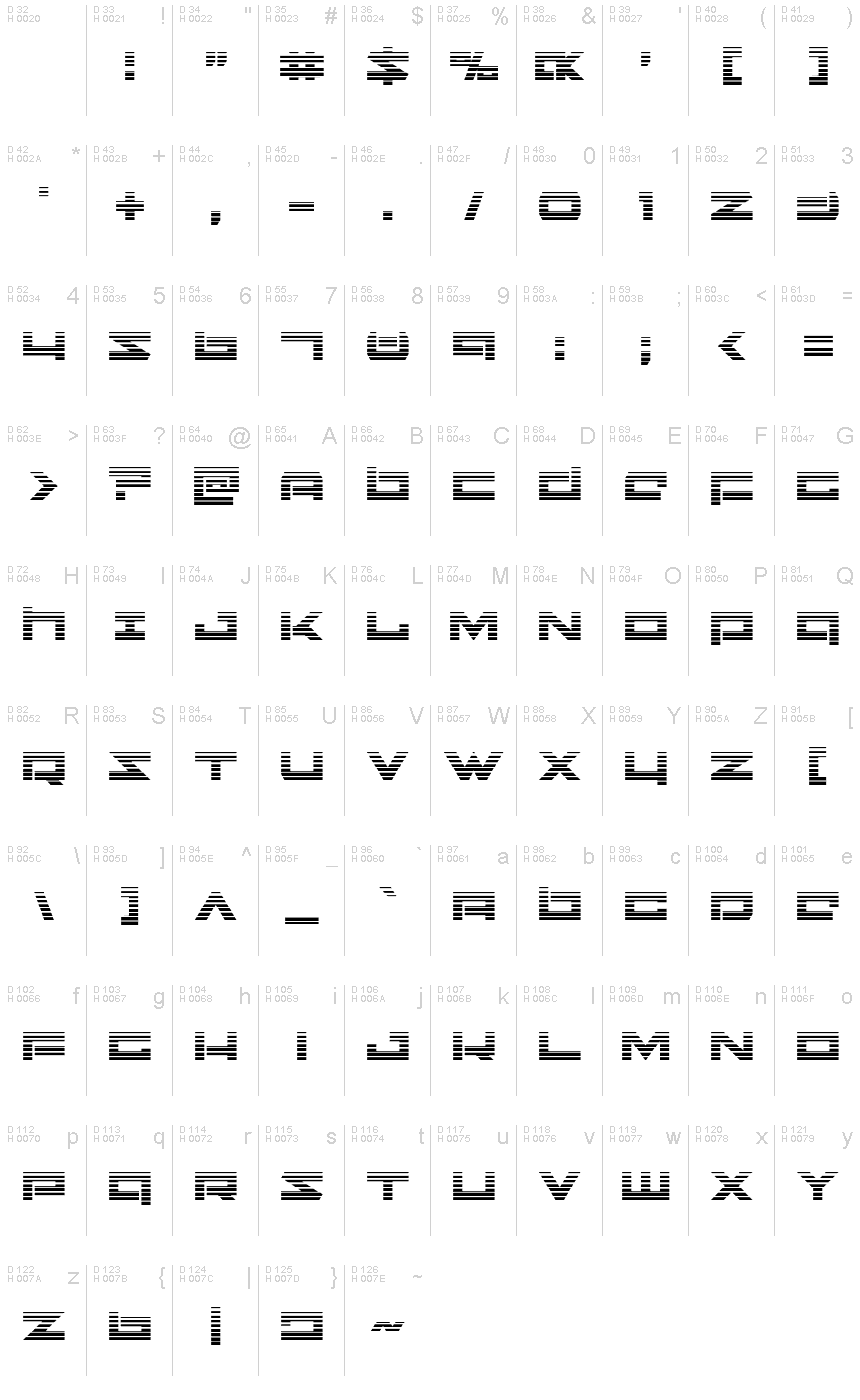
Ninjabot Gradient
Ninjabot Gradient is a bold and techno display font from the Ninjabot font family, designed by Iconian Fonts. With its extra-expanded width, this font commands attention and adds a futuristic touch to any project.
Perfect for video game titles, sci-fi movie posters, or tech-themed websites, Ninjabot Gradient brings an edgy and dynamic look to your designs. Its unique gradient effect gives it a modern twist, making it suitable for forward-thinking projects that require a strong visual impact.